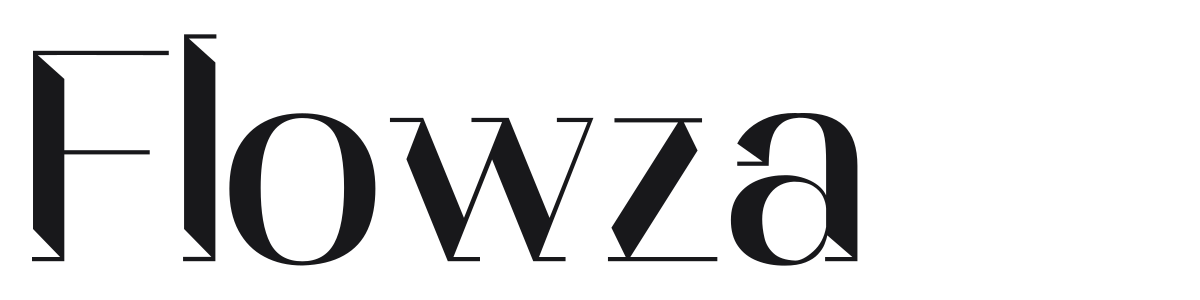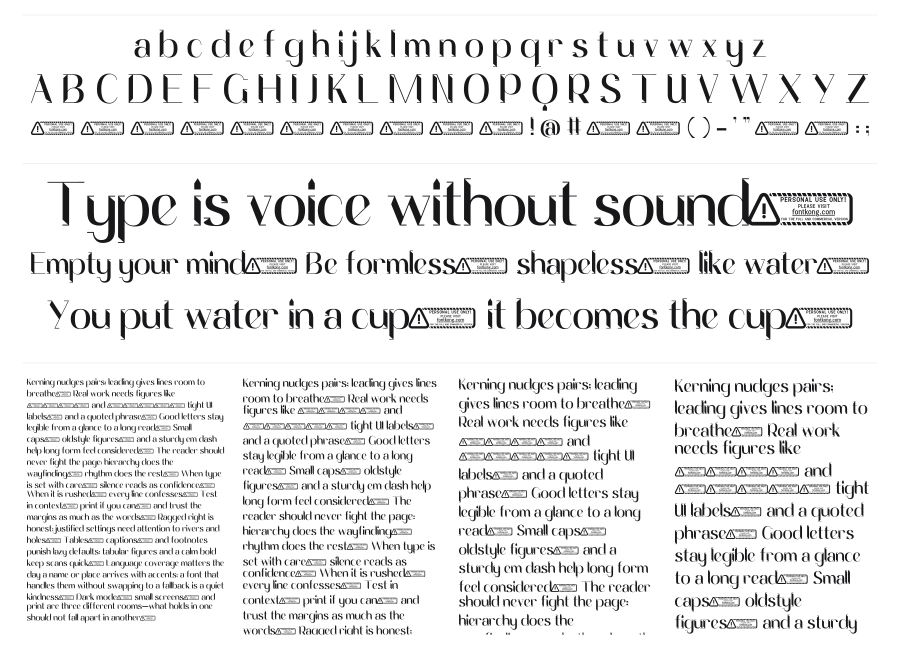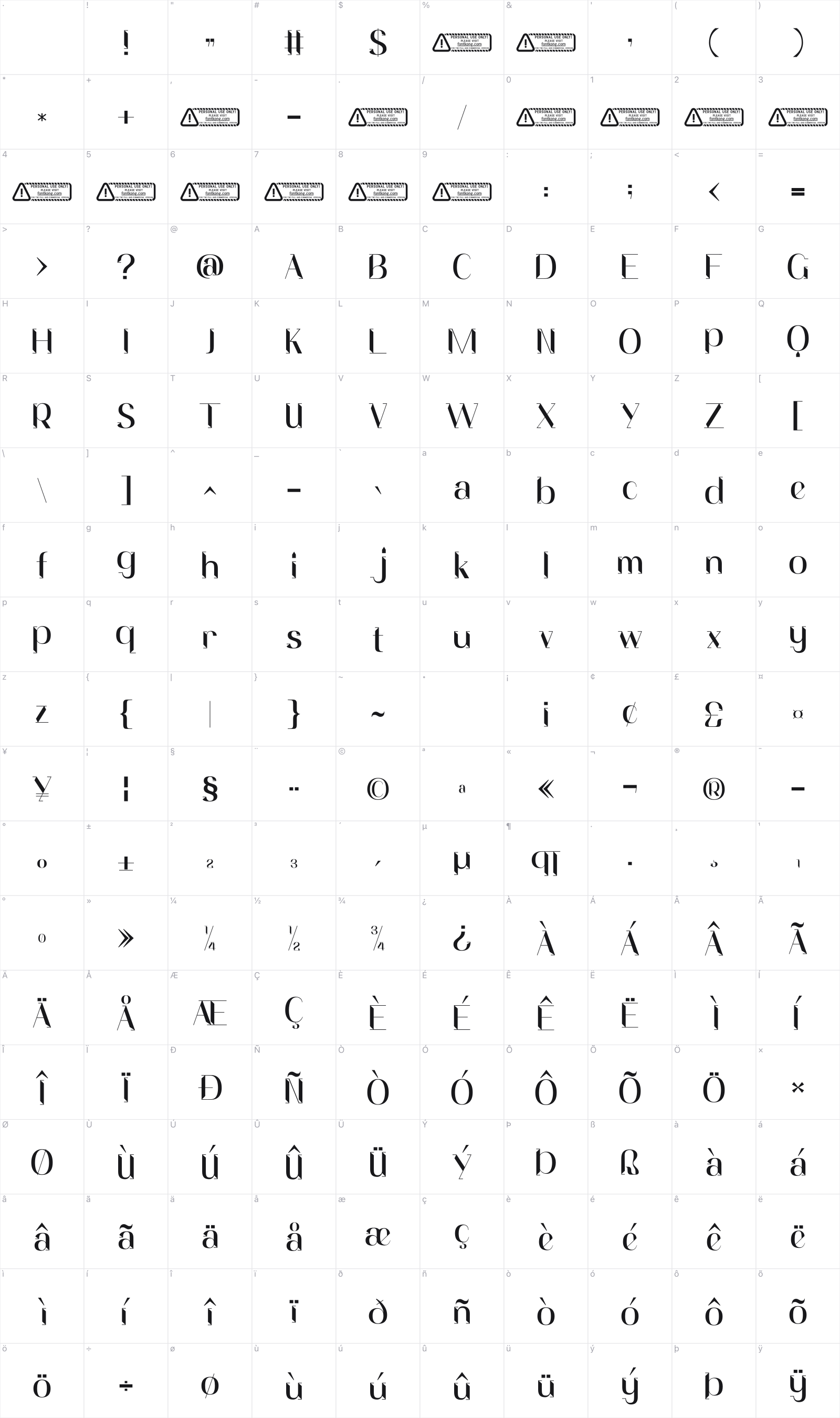
Flowza
Flowza is a high-contrast display serif with dramatic stroke variation and distinctive notch-cuts where thick stems meet thin strokes. The cuts give it an almost stencil-like structural detail that separates it from a standard Didone revival. It reads fashion and luxury at large sizes.